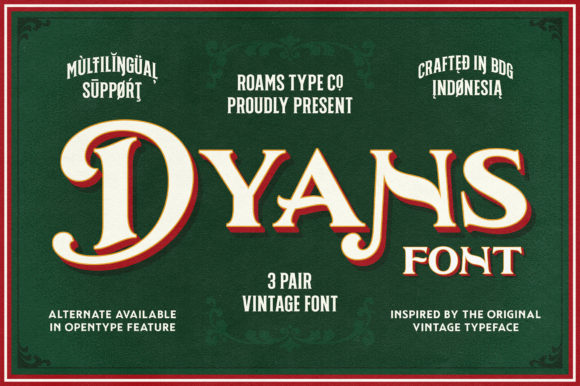
Buckle up for a typographic journey to a bygone era with Dyans Font, the ultimate display font that oozes vintage charm and breathes life into your creative endeavors. Crafted by the masterminds at Roams Type Co., Dyans captivates with its strong, thick strokes, exuding a unique character that sets it apart from the mundane. Prepare to make a statement with every design using Dyans.
Unleash your creativity and let Dyans transform your posters into timeless masterpieces, adding a touch of retro elegance that grabs attention and sparks conversation. With its distinct appeal, Dyans breathes new life into your labels, leaving an unforgettable impression on all who see it. From apparel designs that stand out on the fashion runway to branding that oozes individuality, Dyans empowers you to tell your story with a touch of vintage flair.
Step into a world of imagination and let Dyans fuel your ideas, propelling them to new heights. Whether it's a personal project or a professional endeavor, Dyans becomes your creative ally, lending its vintage charm to every concept, every design. Elevate your projects with Dyans, the gateway to a world of timeless beauty and distinction.
Welcome to the realm of vintage typography, where Dyans reigns supreme, beckoning you to embrace its nostalgic allure. With every stroke and curve, Dyans tells a tale of the past, a story waiting to be uncovered. Let your designs speak volumes with Dyans, creating an emotional connection with your audience that lingers long after the page is turned.